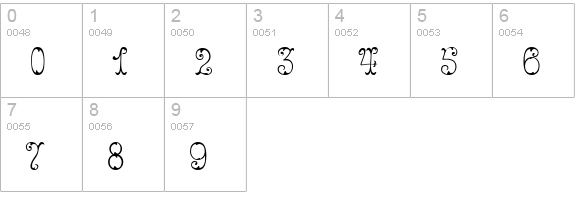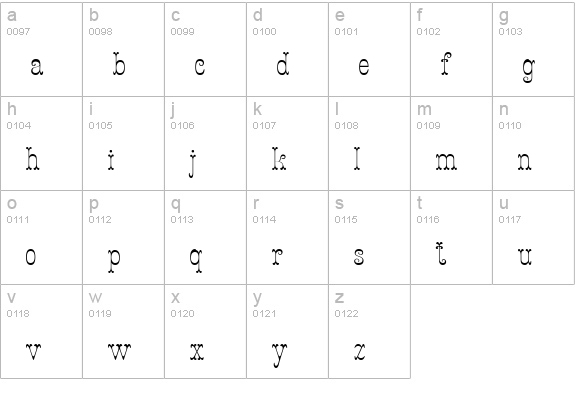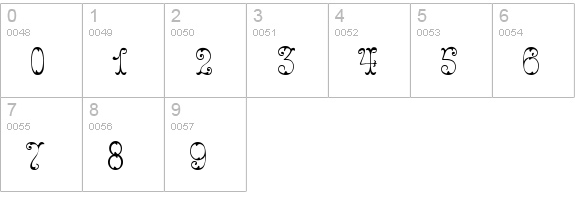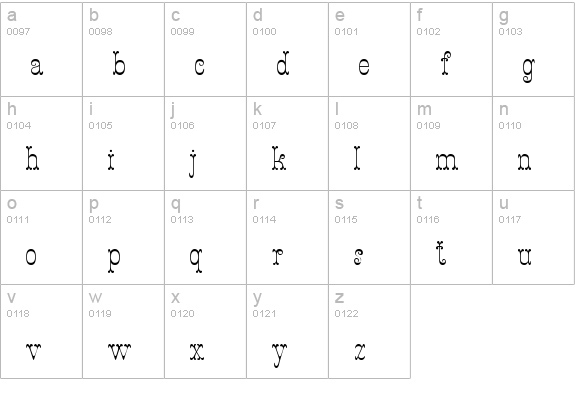
Figurny Font Details
Figurny font is a modern and stylish typeface that is perfect for adding a touch of sophistication to your designs. With its sleek lines and elegant curves, Figurny font exudes a sense of creativity and professionalism. Whether you're working on a logo, branding materials, or a website design, this font will make your text stand out and leave a lasting impression. The best part about Figurny font is that it is completely free to download. You can access this beautiful font at FontsMarket.com and start using it in your projects right away. Don't miss out on the opportunity to enhance your designs with the sleek and sophisticated Figurny font today.